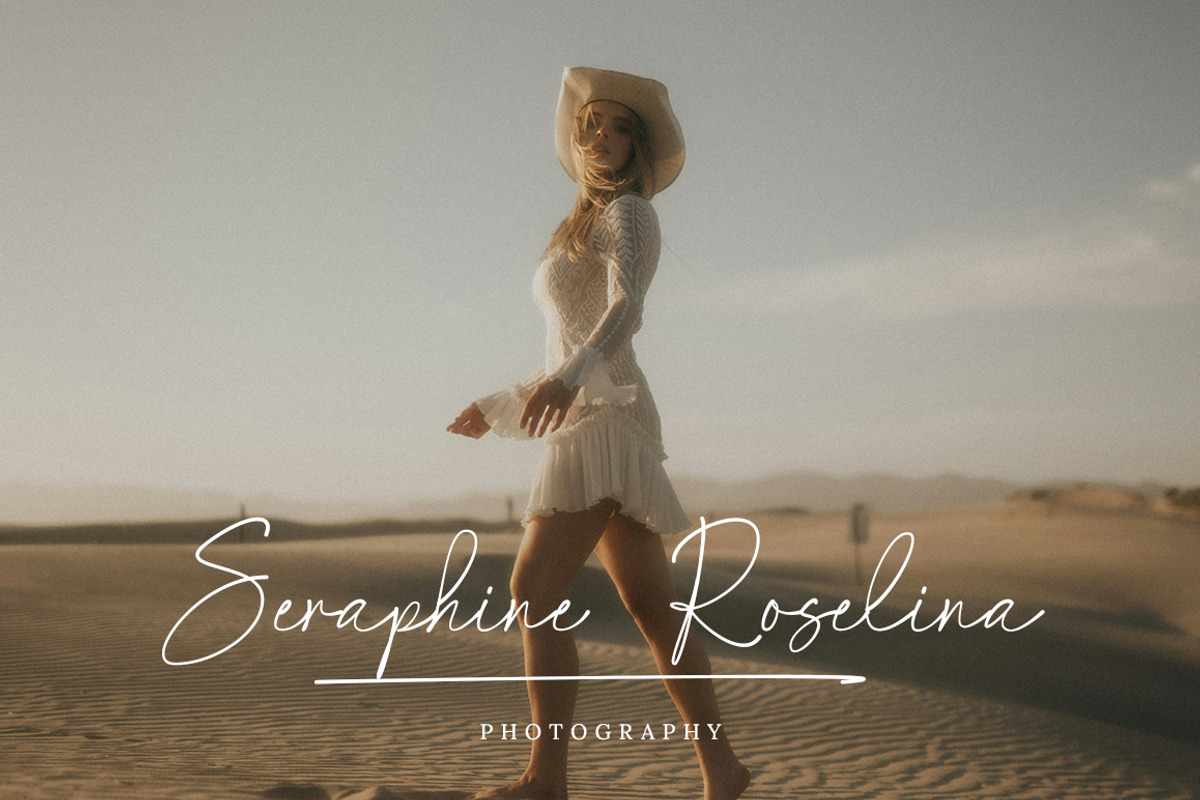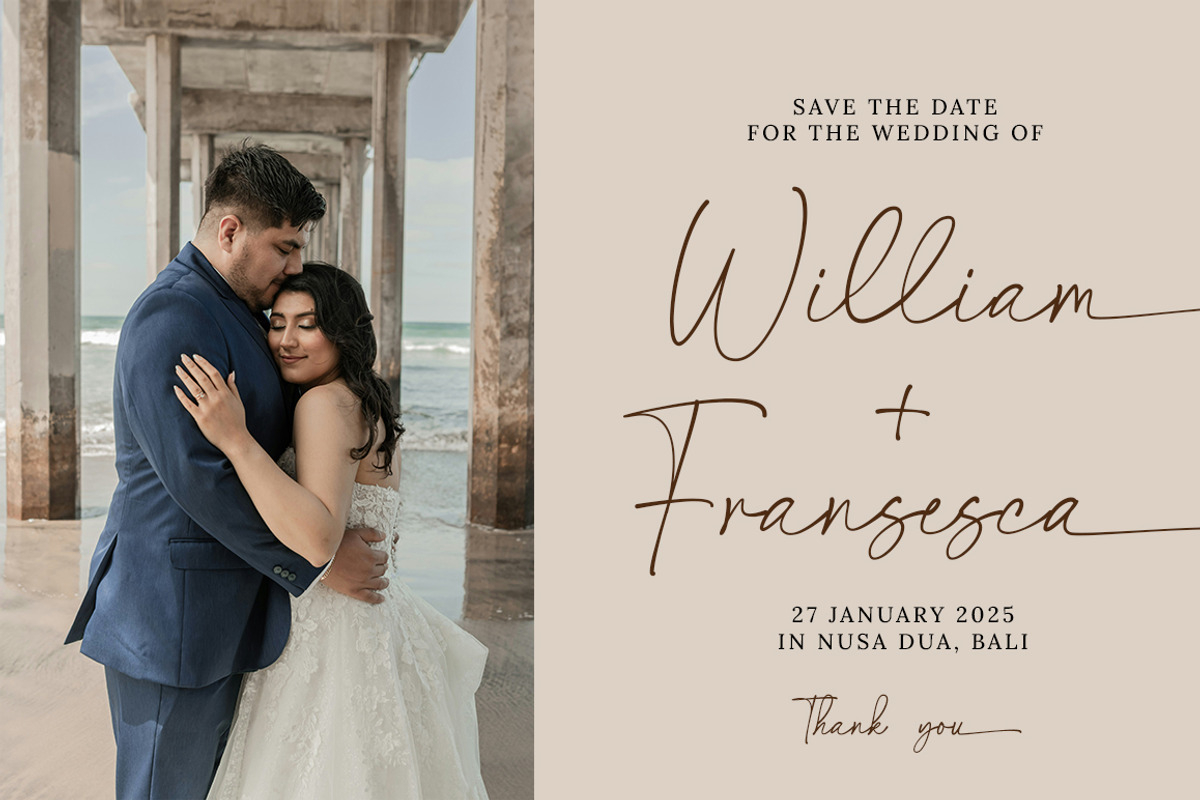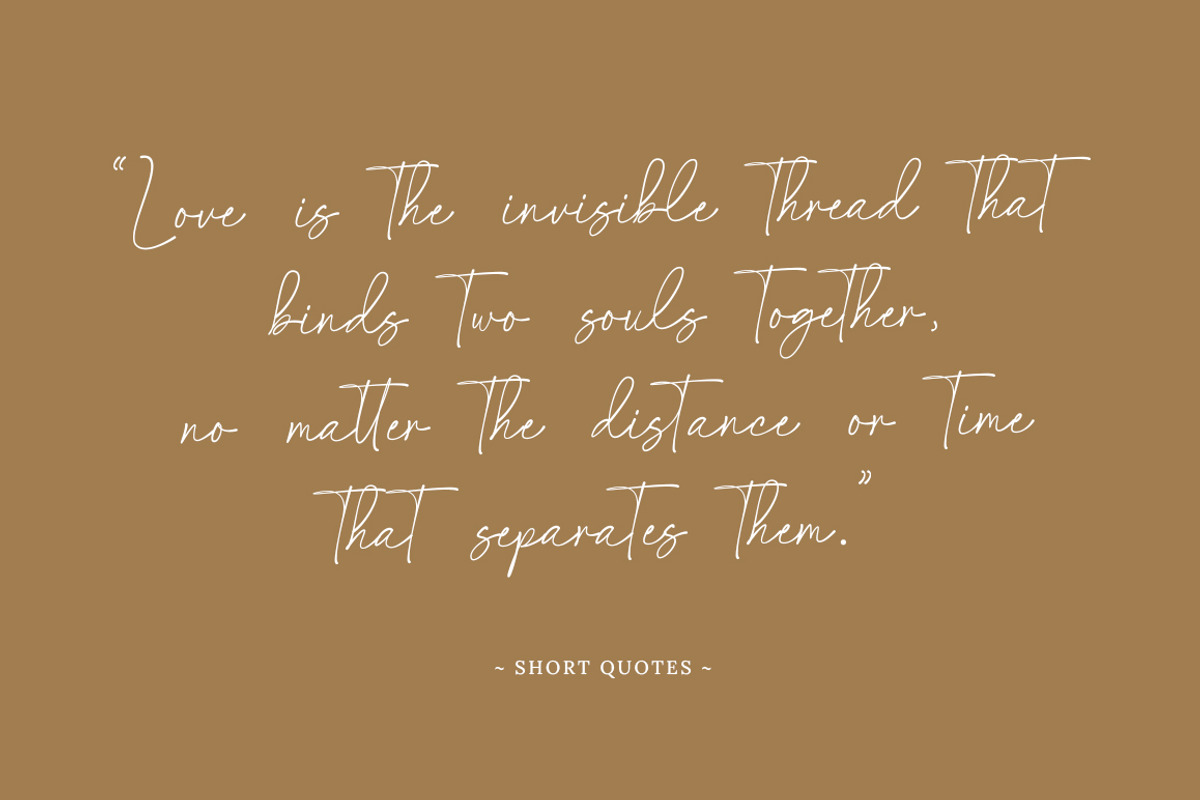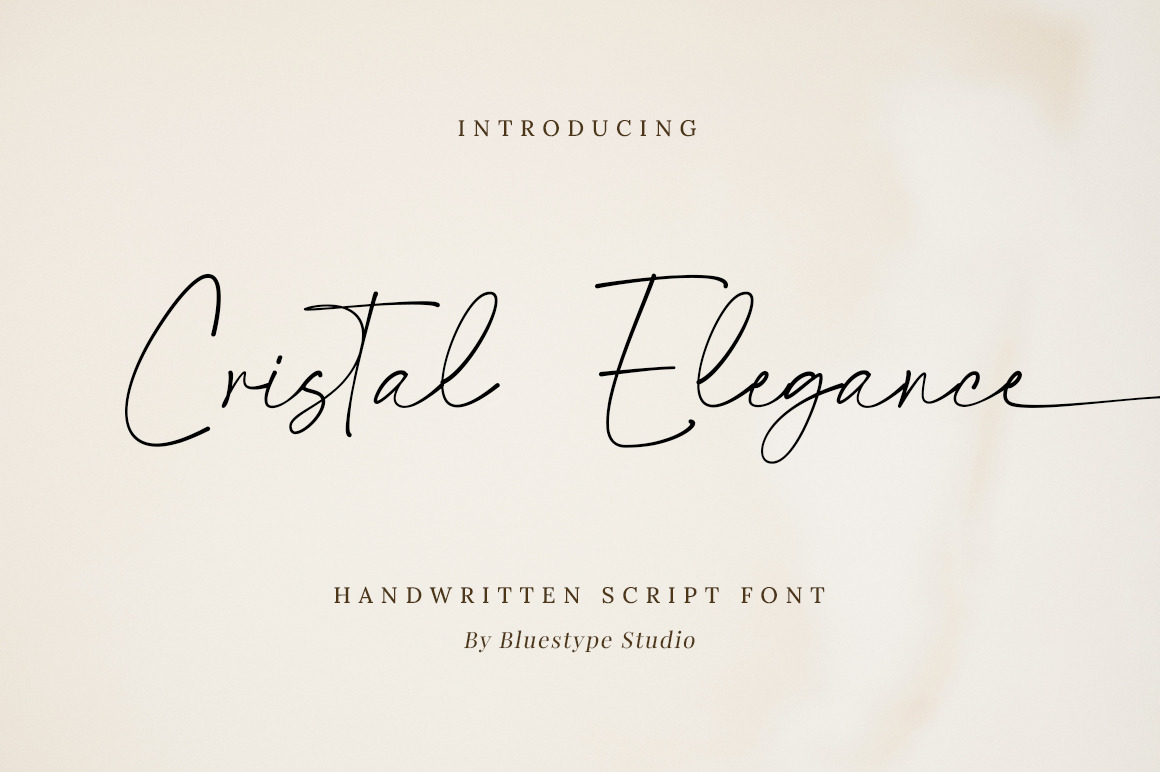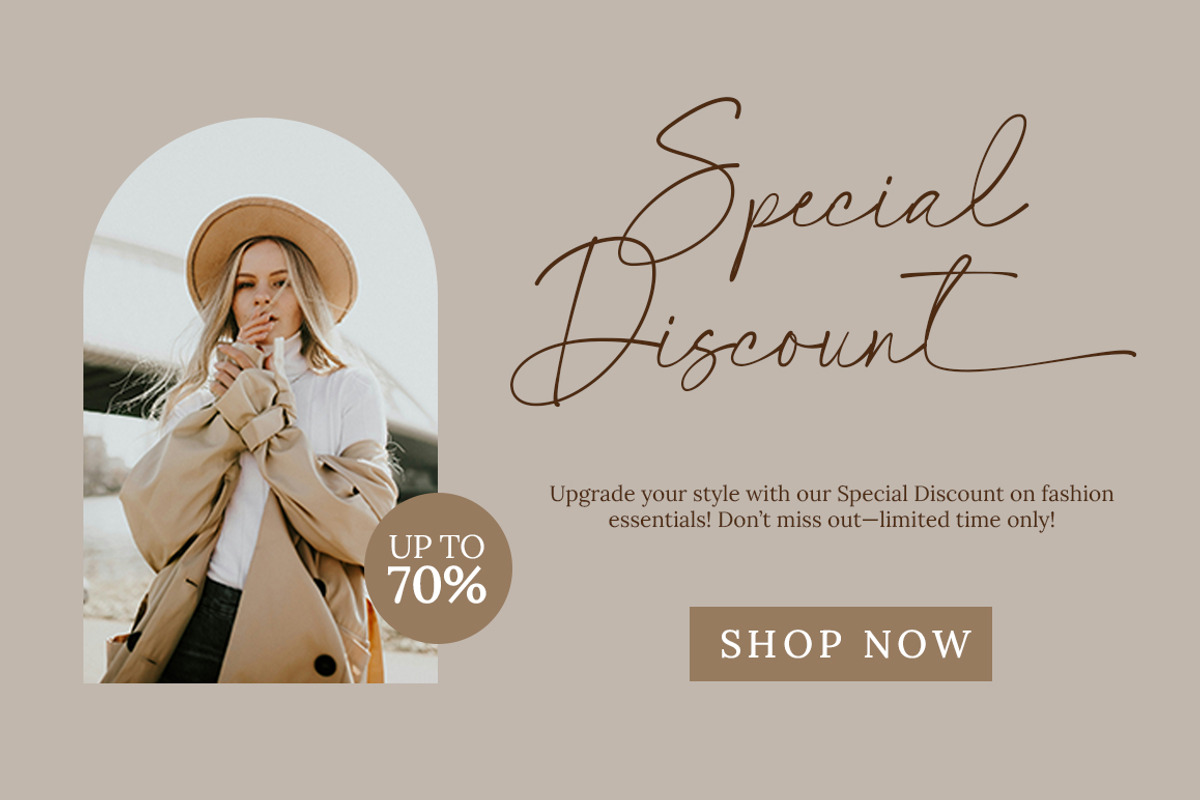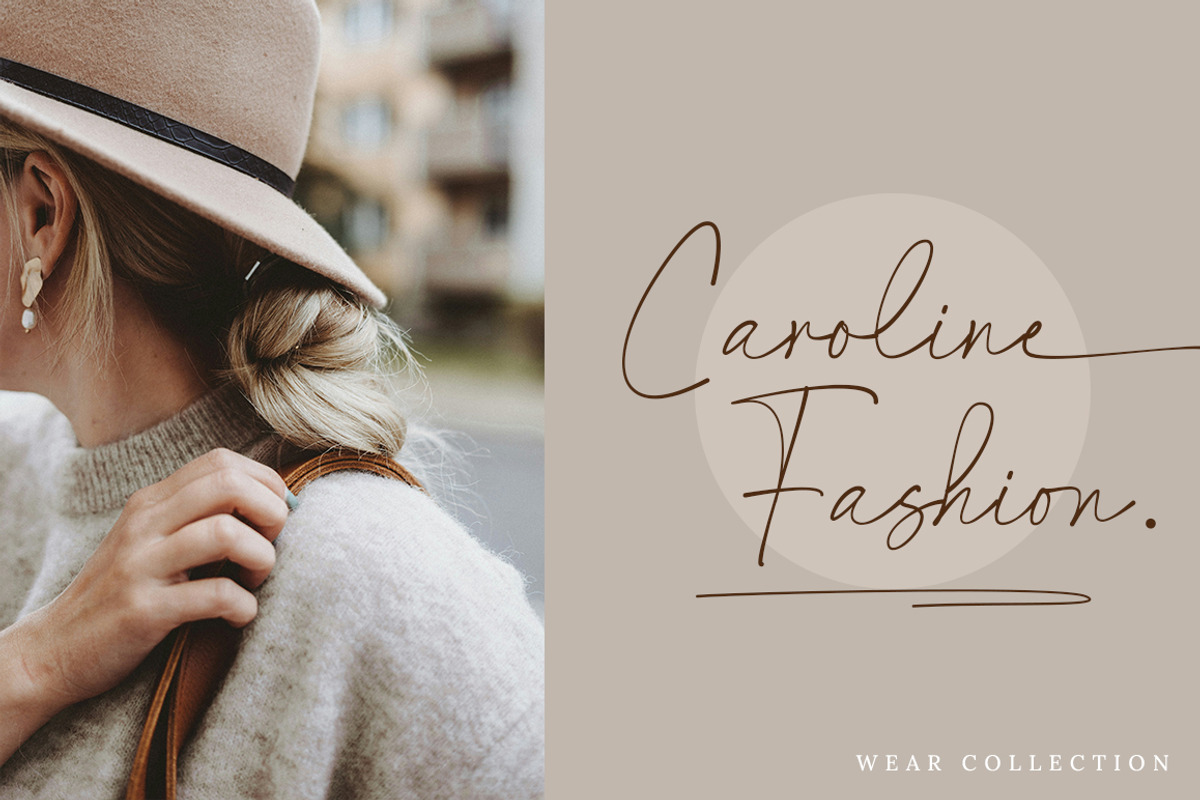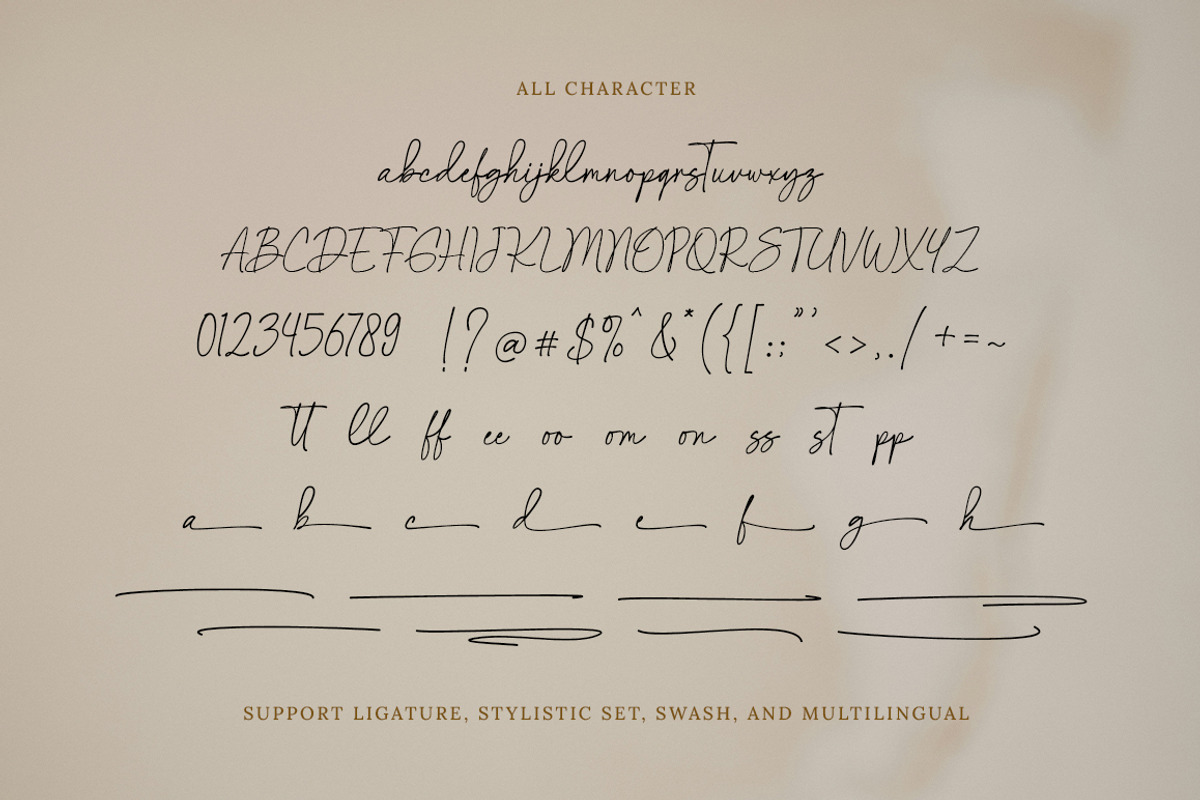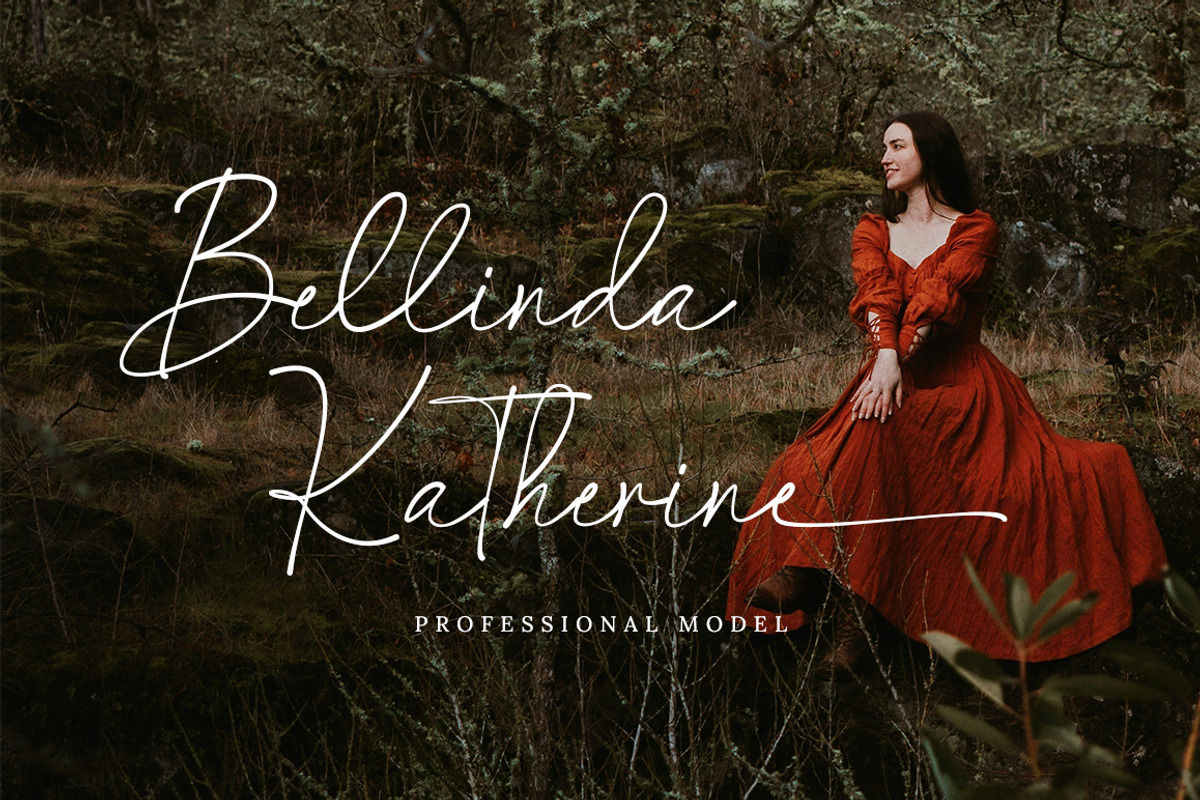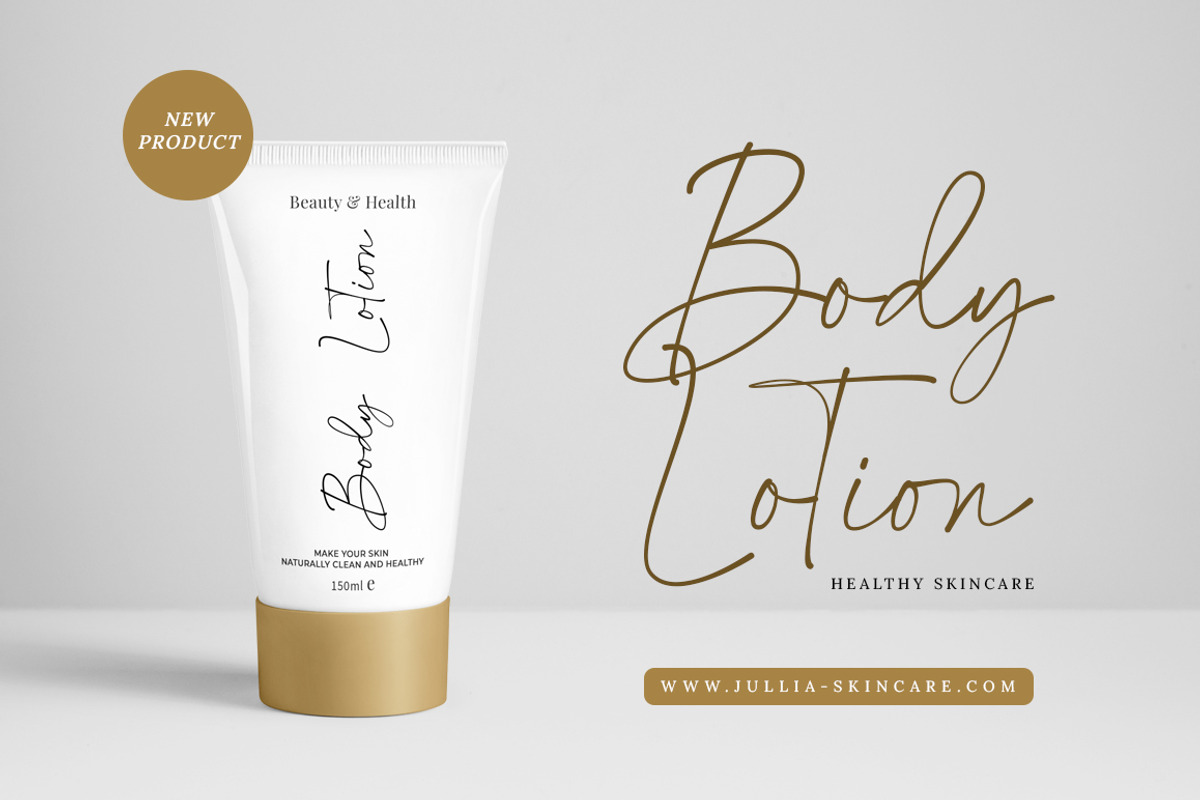
Cristal Elegance - Handwritten Font
Introducing Cristal Elegance: The Perfect Handwritten Signature Font For Timeless Beauty.
Cristal Elegance is a beautifully crafted handwritten font that captures the essence of refined elegance and sophistication. Its flowing, signature-style strokes exude charm and grace.
making it the perfect choice for luxury branding, invitations, logos, and projects that require a touch of timeless beauty. The font’s delicate curves and smooth lines create a sense of effortless style, ideal for adding a personal and polished feel to any design.
- Ligature Set
- Stylistic Set
- Swash Character
- Support Multilingual Language